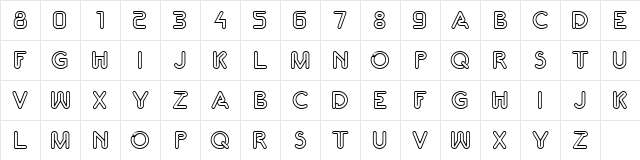
Made Mo1 Regular Free Font
Made Mo1 Regular
Design Context for Made Mo1
Made Mo1 is a composed and adaptable typeface that performs quietly and consistently across a wide range of design contexts.